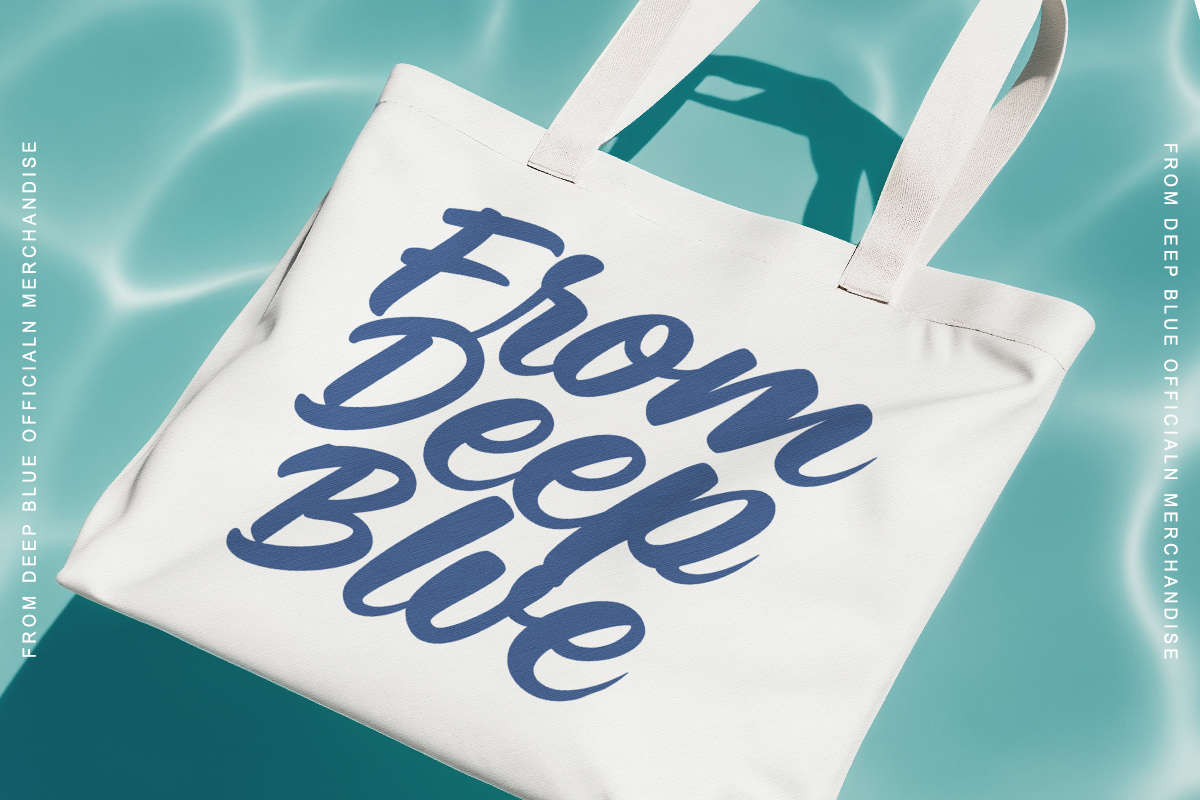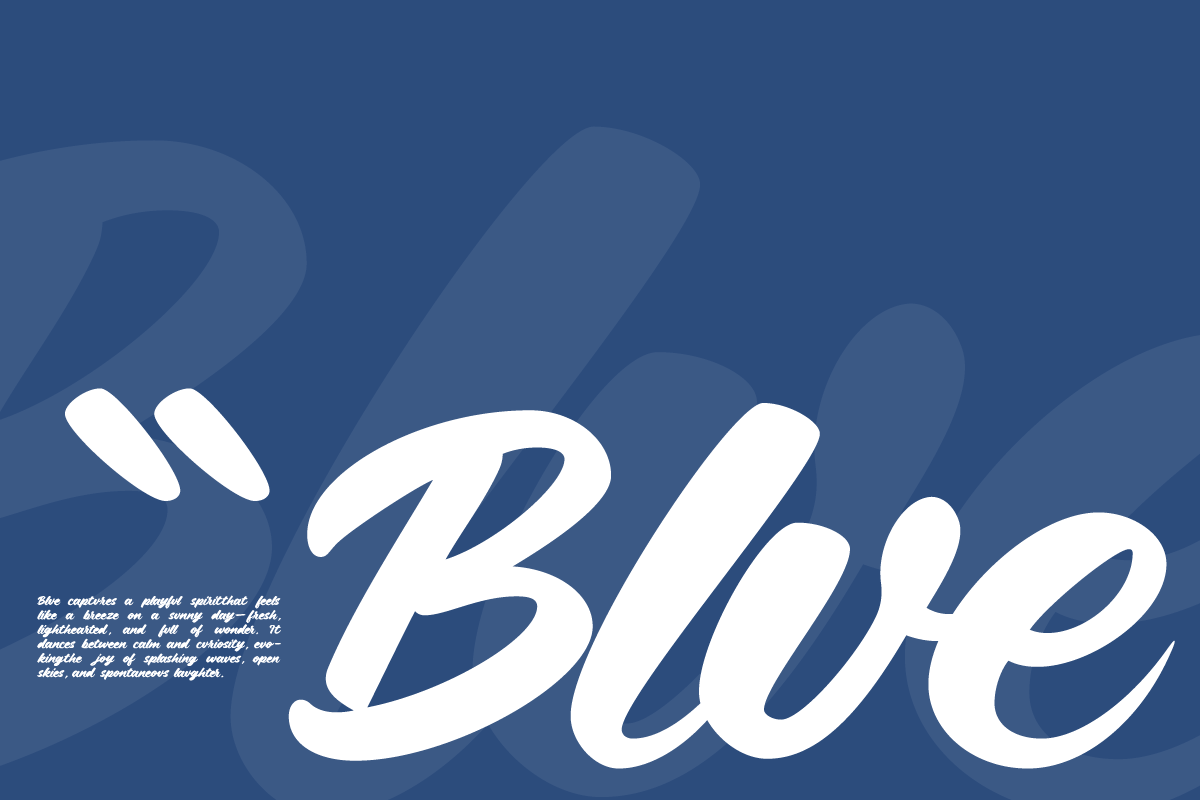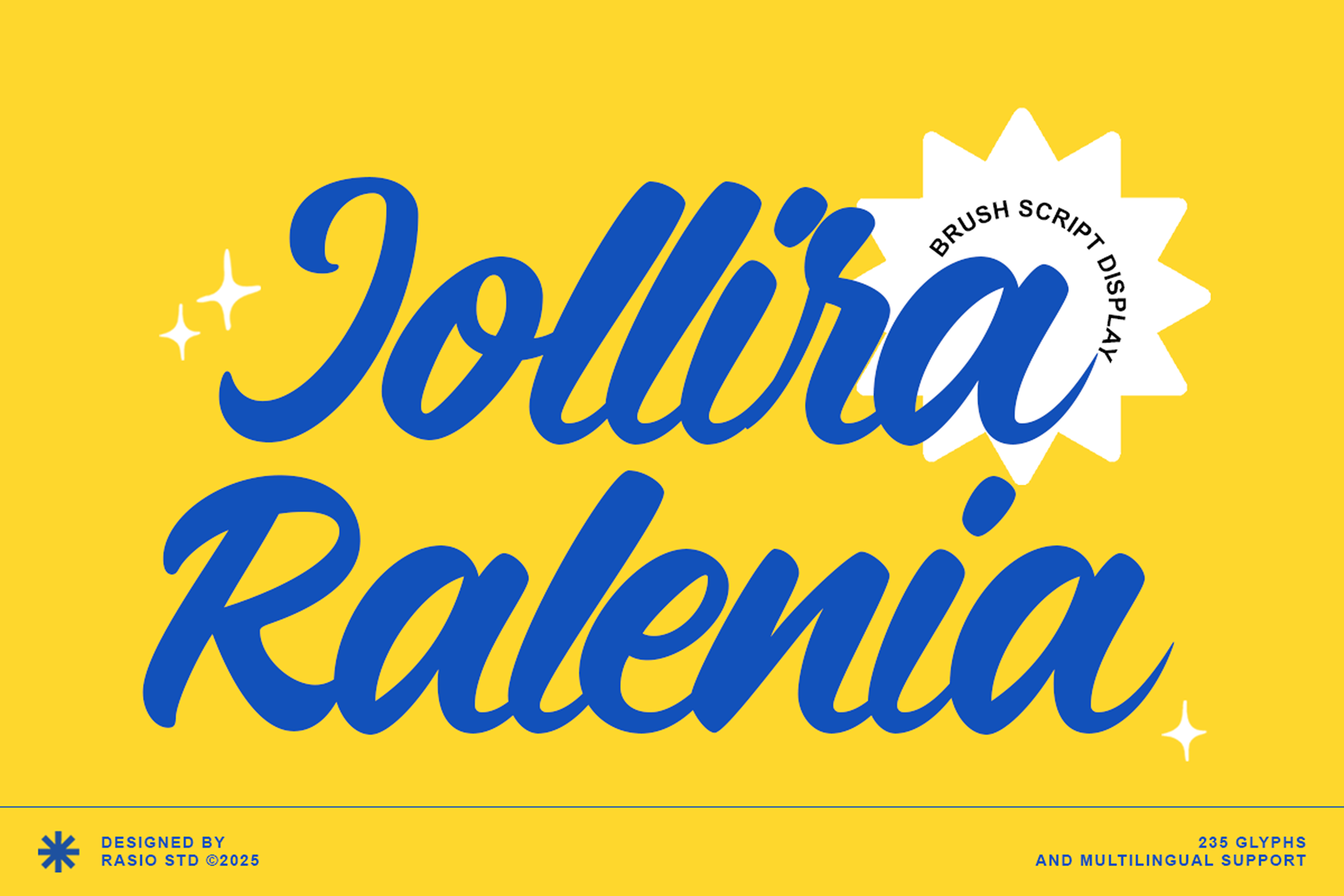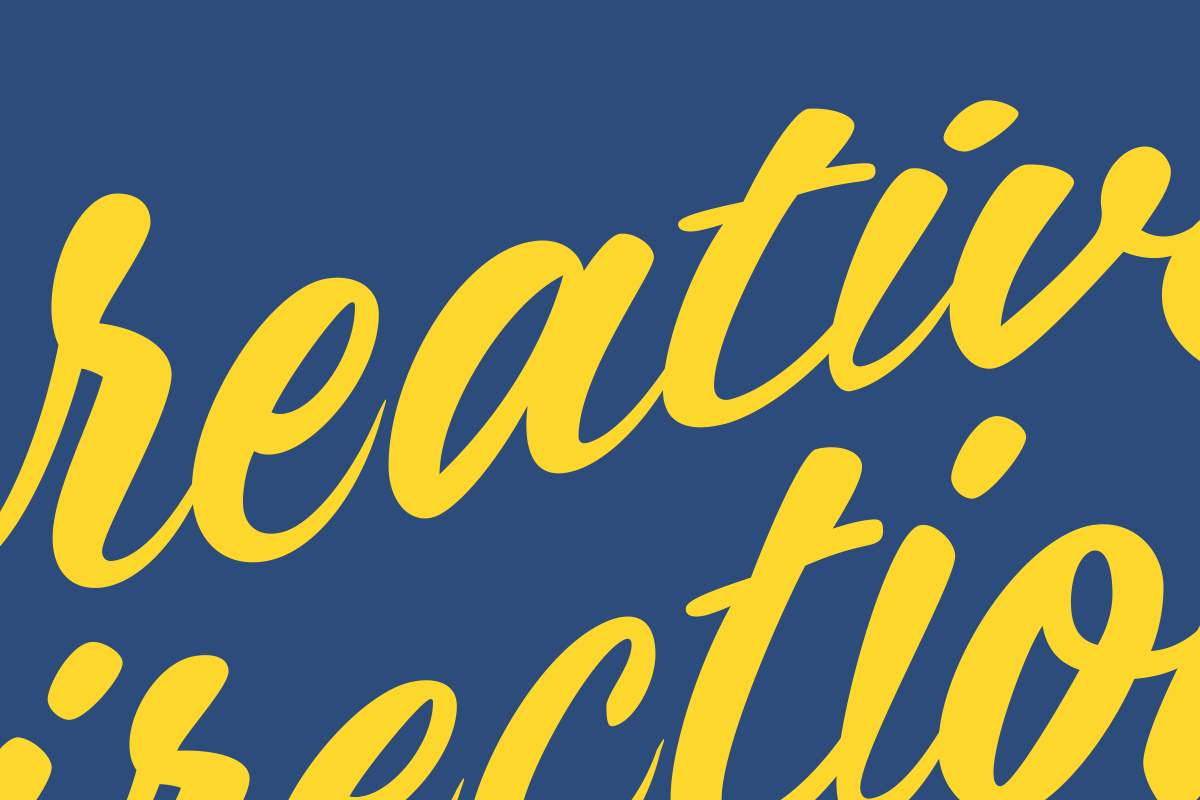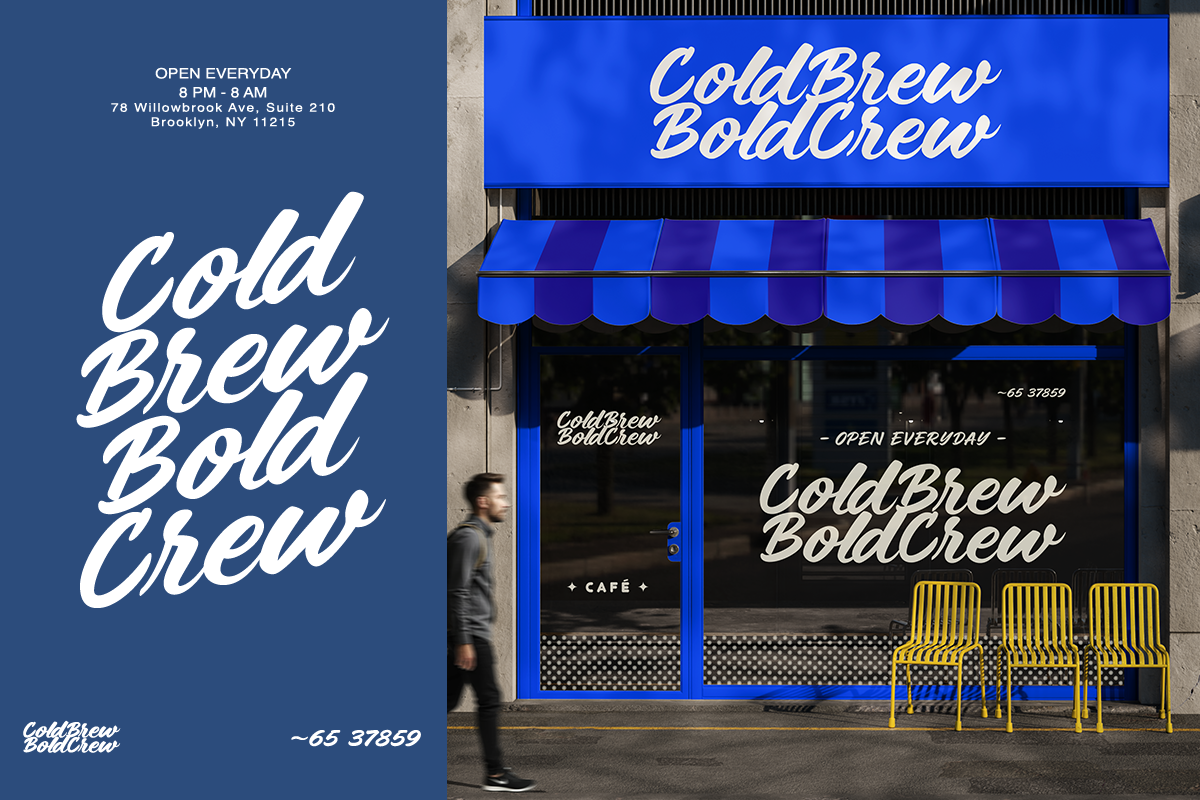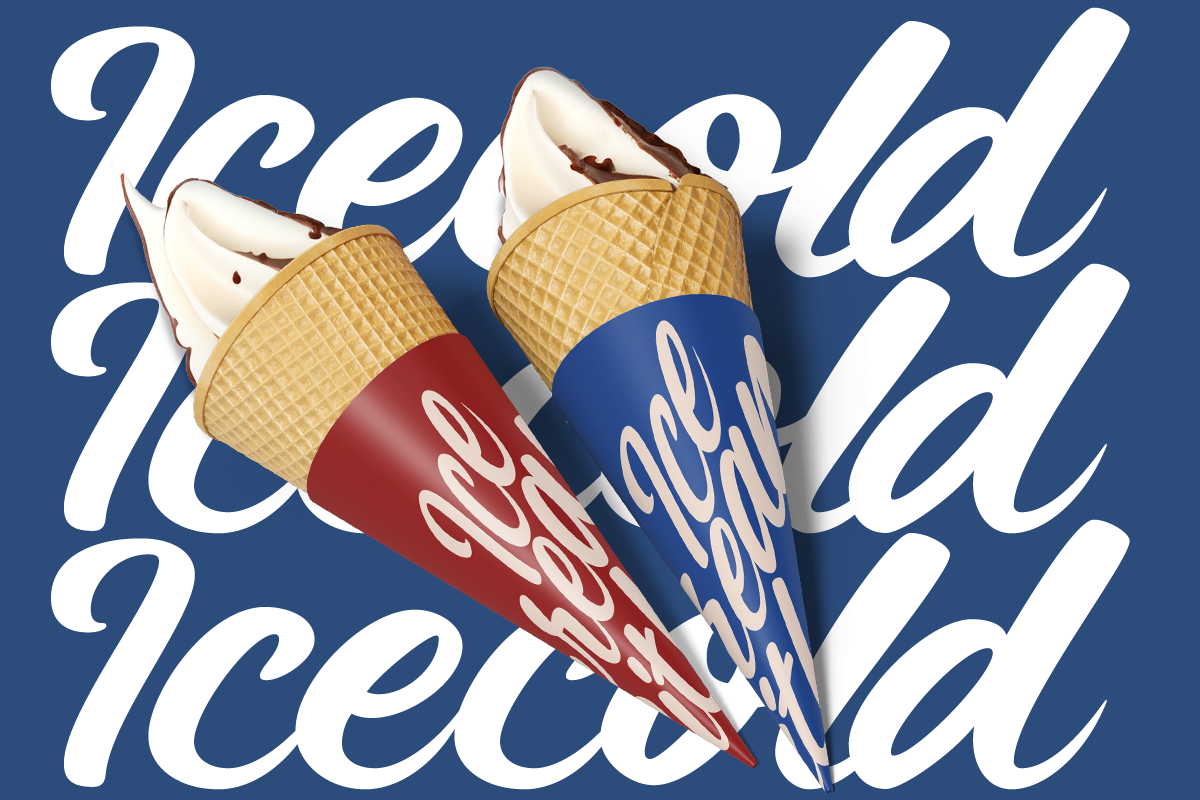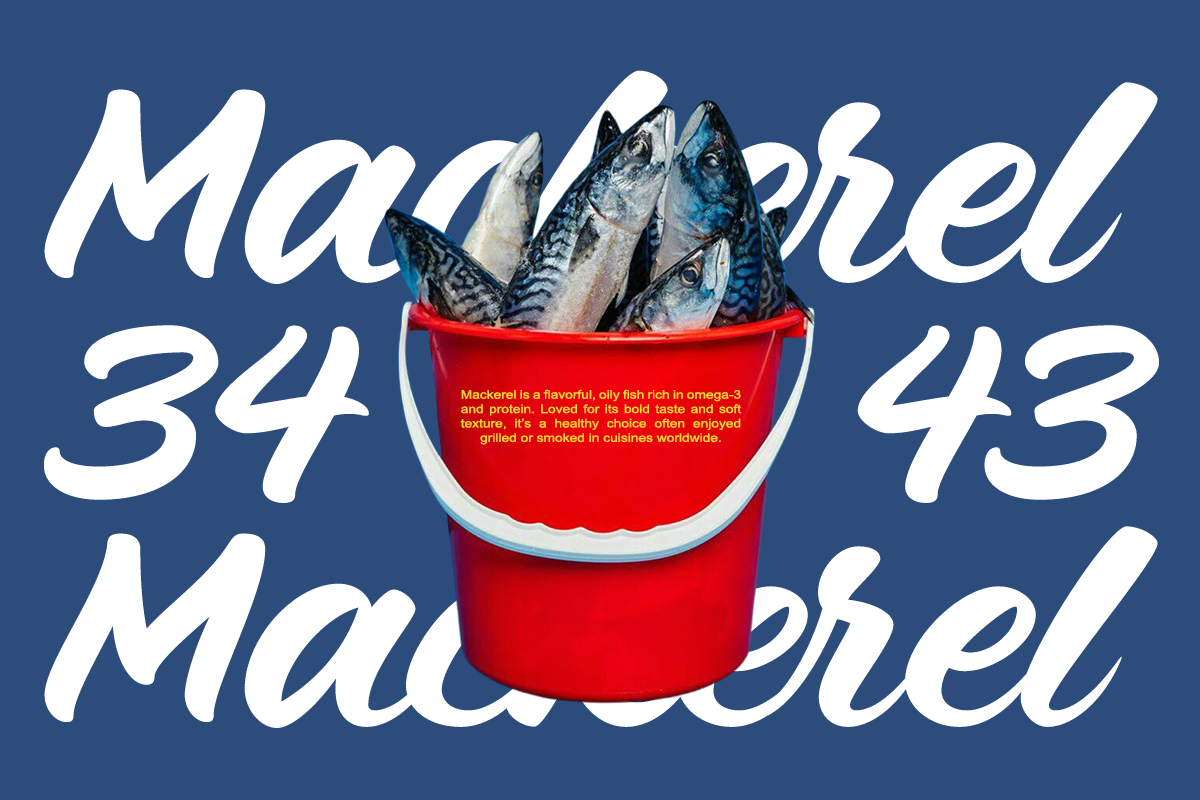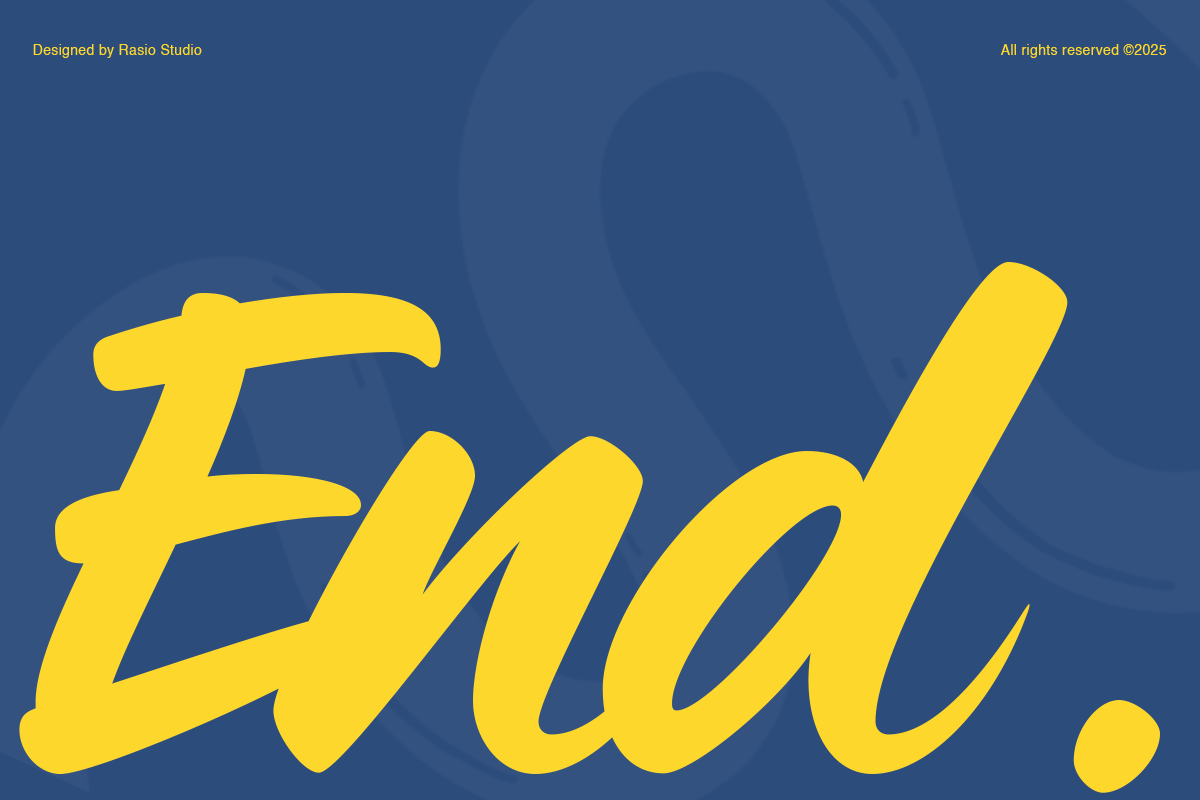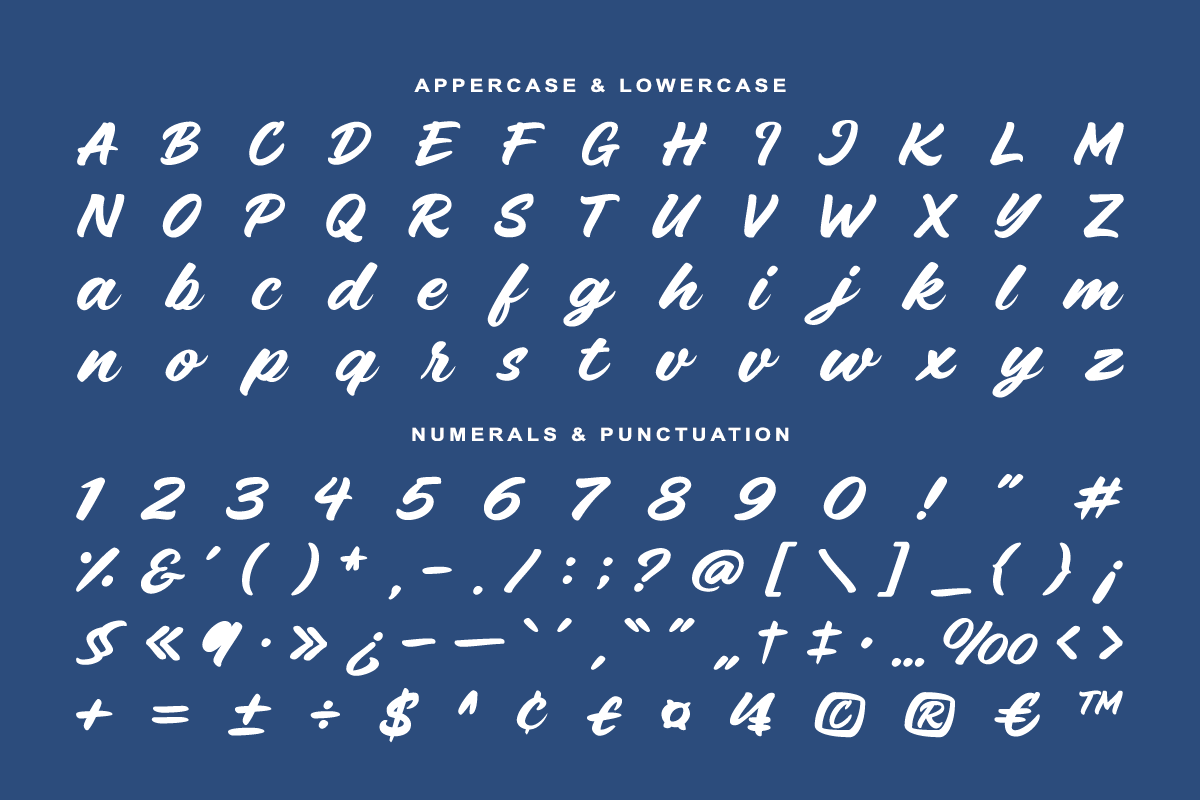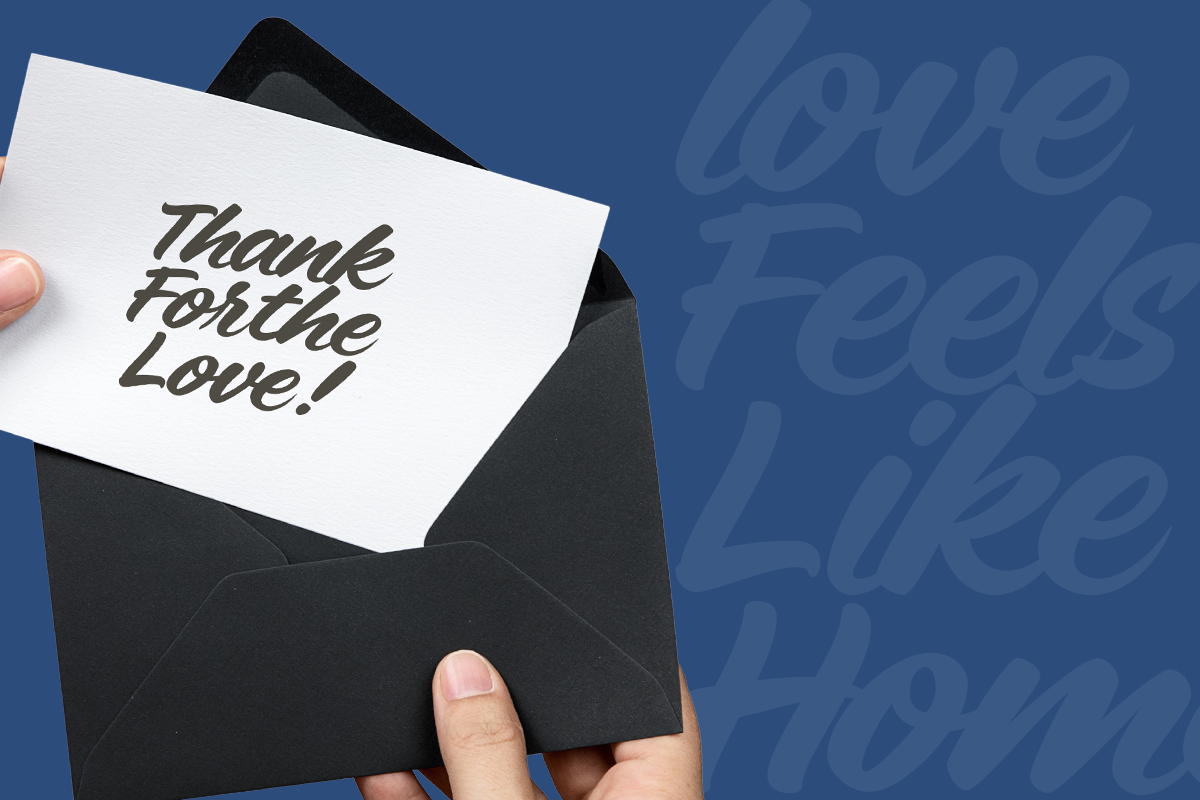
Jollira Ralenia Brush Script Font
Jollira Ralenia showcases a smooth brush script style with flowing strokes and natural handwritten rhythm. The letterforms feature soft curves, rounded edges, and consistent stroke weight that create a friendly and expressive appearance. Its casual yet polished structure delivers a lively and modern feel while maintaining clear readability. Includes uppercase, lowercase, numerals, punctuation.
Relevance and Use Cases is perfect for branding identity, logo design, packaging, social media content, poster designs, merchandise graphics, invitations, greeting cards, lifestyle branding, café menus, quotes design, and creative projects that need a natural and expressive handwritten style.
- Smooth brush script construction with natural handwritten flow
- Consistent stroke weight for a clean and balanced appearance
- Soft curves and rounded terminals for a friendly and approachable feel
- Fluid letter connections that enhance rhythm and readability
- Playful yet controlled proportions for expressive typography
- Optimized spacing for clear visibility in display and short text use
- Branding projects with a friendly and expressive tone
- Logo designs with a natural handwritten personality
- Product packaging with a lively and approachable feel
- Social media graphics and promotional visuals
- Invitation cards, greeting designs, and event materials
- Creative merchandise such as apparel, stickers, and lifestyle branding
Add a bold handwritten touch that feels smooth with Jollira Ralenia